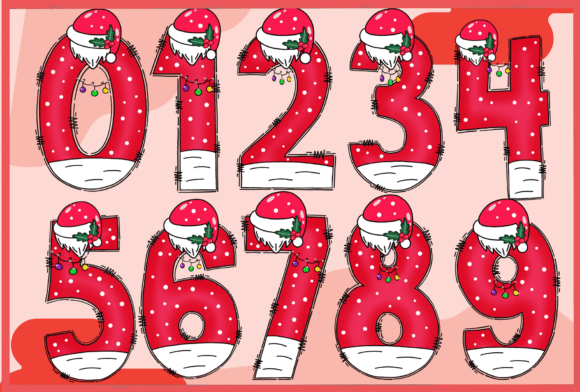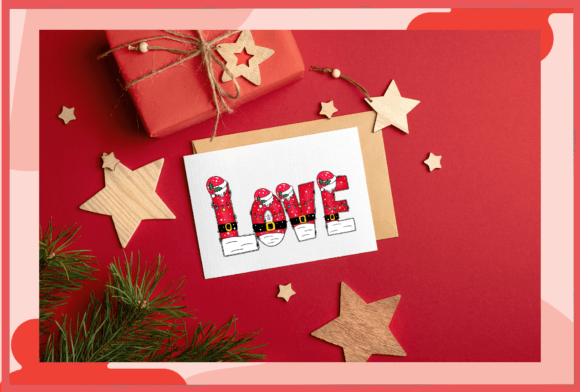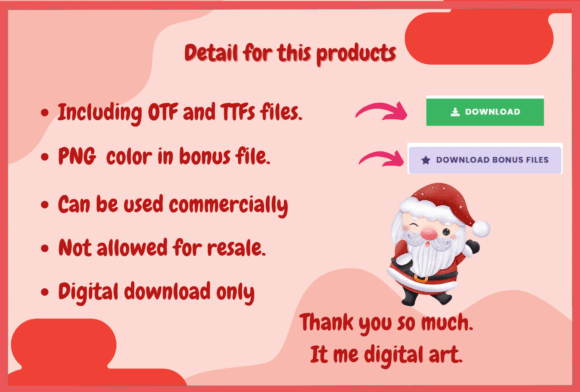
Santa Cute Font
Introducing Santa Cute font, where every letter is dressed as jolly old Santa himself, complete with a festive Santa hat on top. This adorable Christmas decorative font adds a touch of holiday cheer to your designs. Perfect for greeting cards, holiday-themed projects, and festive decorations, Santa Cute font brings a smile to everyone’s face with its playful and charming characters.